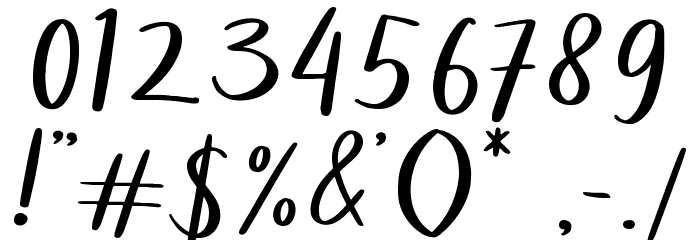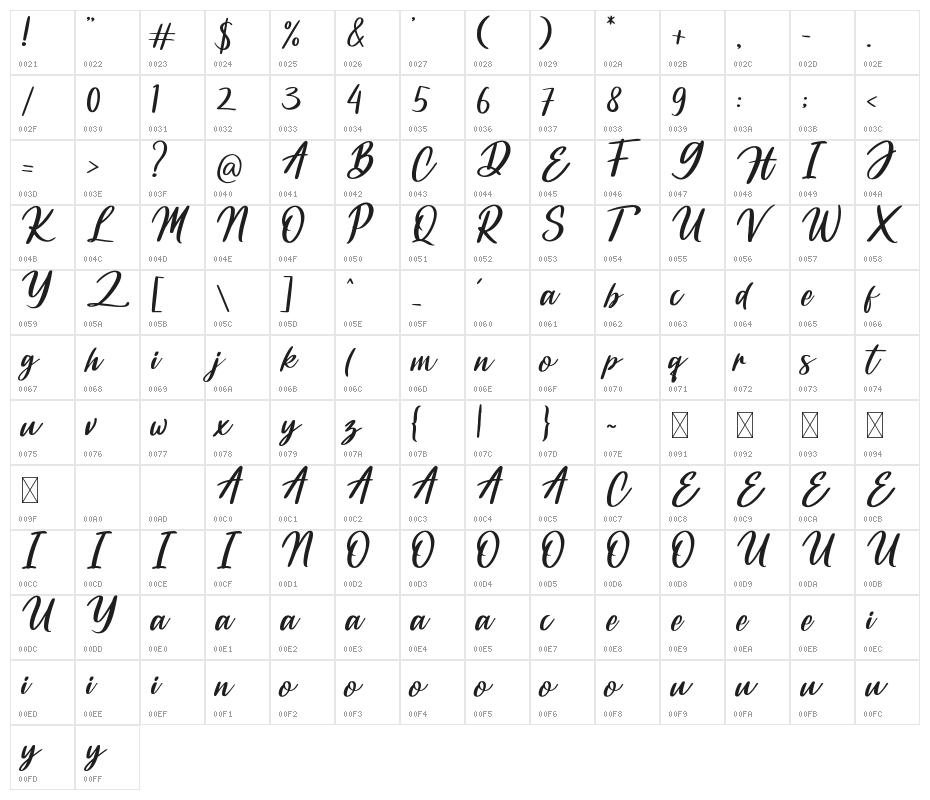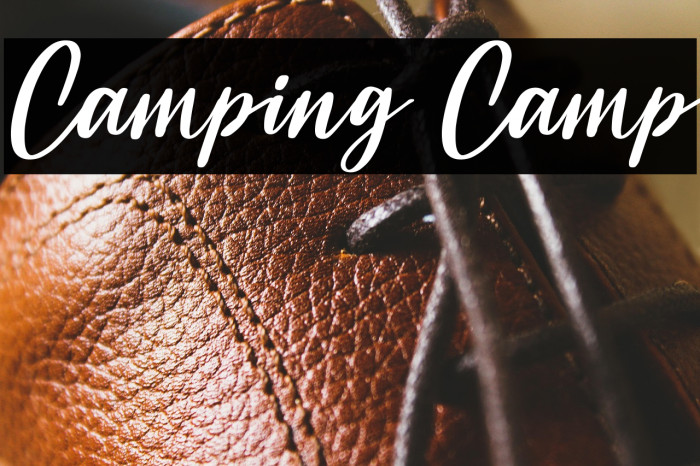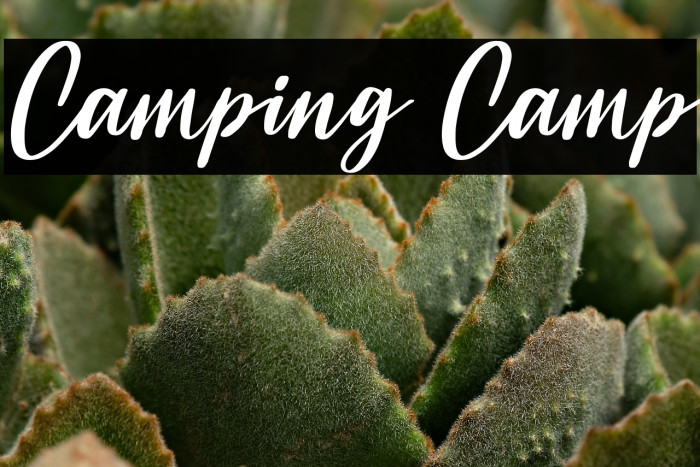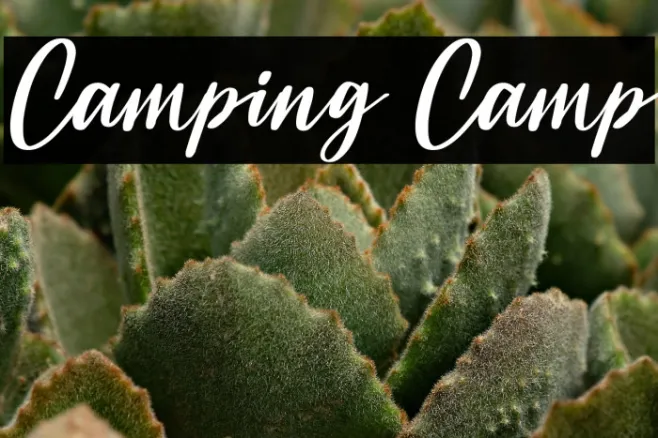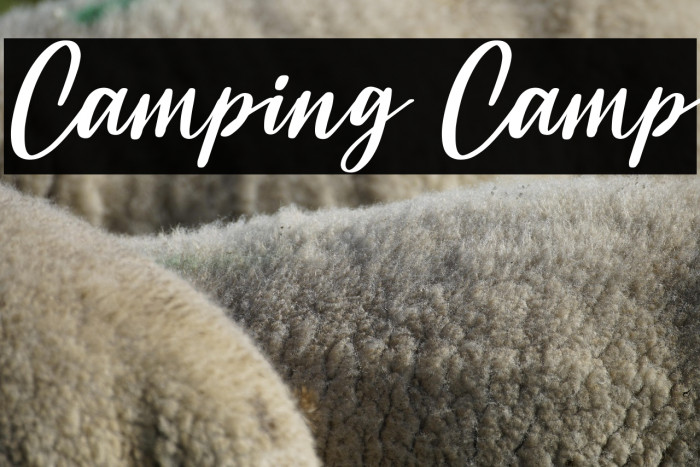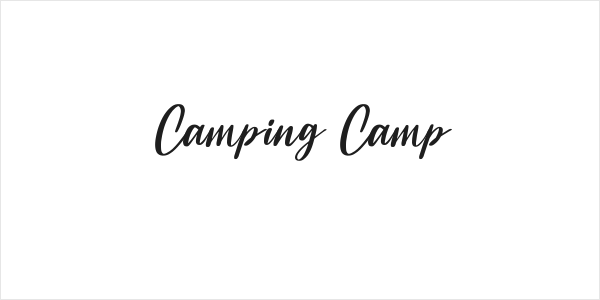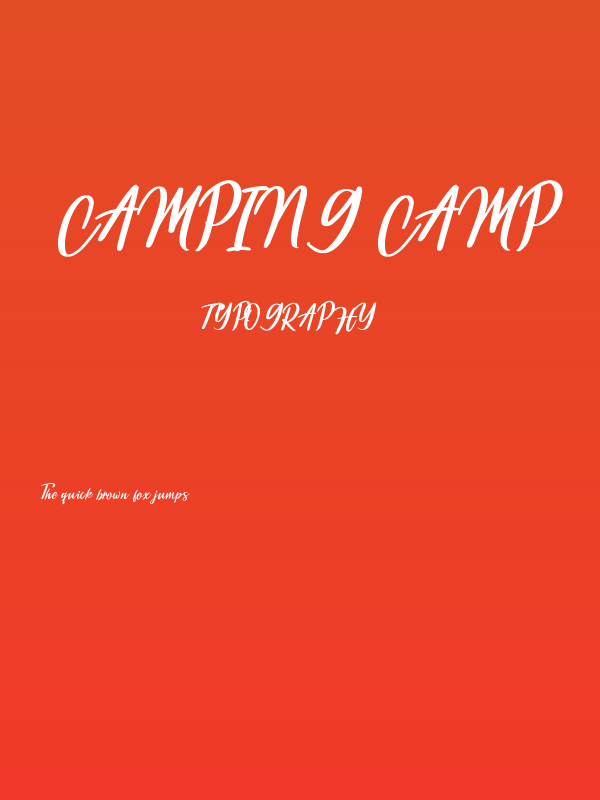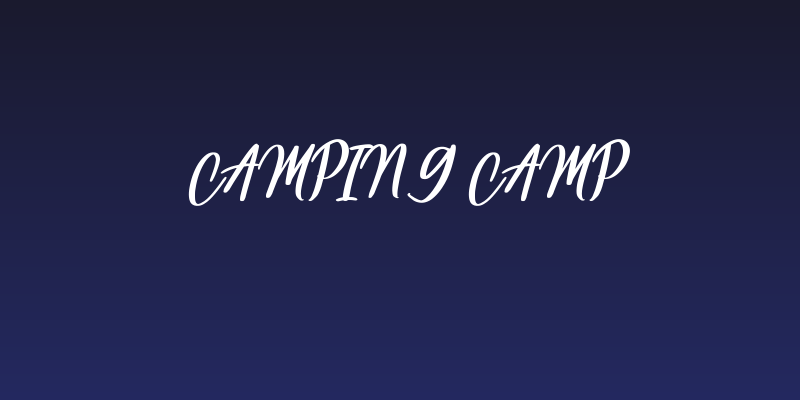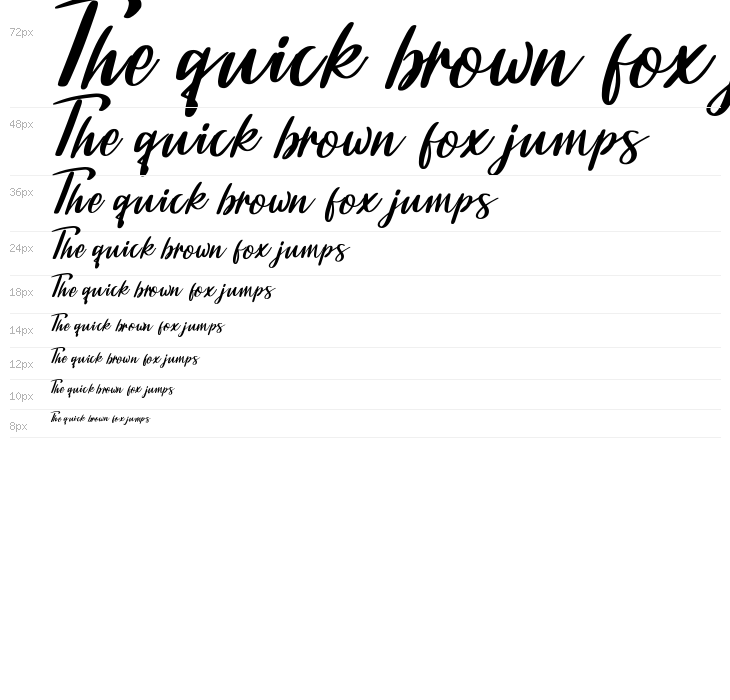
Camping Camp Font
Camping Camp Description
This font features a lively and flowing script style, characterized by its smooth, cursive strokes and elegant flair. The uppercase letters are bold and dynamic, with a slight slant that adds a sense of motion and energy. The lowercase letters maintain a consistent flow, with rounded edges and a harmonious balance between thick and thin lines. Numbers and special characters are crafted with the same fluidity, ensuring a cohesive look across all elements. The overall design exudes a sense of creativity and spontaneity, making it ideal for projects that require a personal and artistic touch.
Use CaseLogos, Invitations, Artistic projects
Proposed ProjectsIdeal for wedding invitations, greeting cards, branding, and artistic projects.